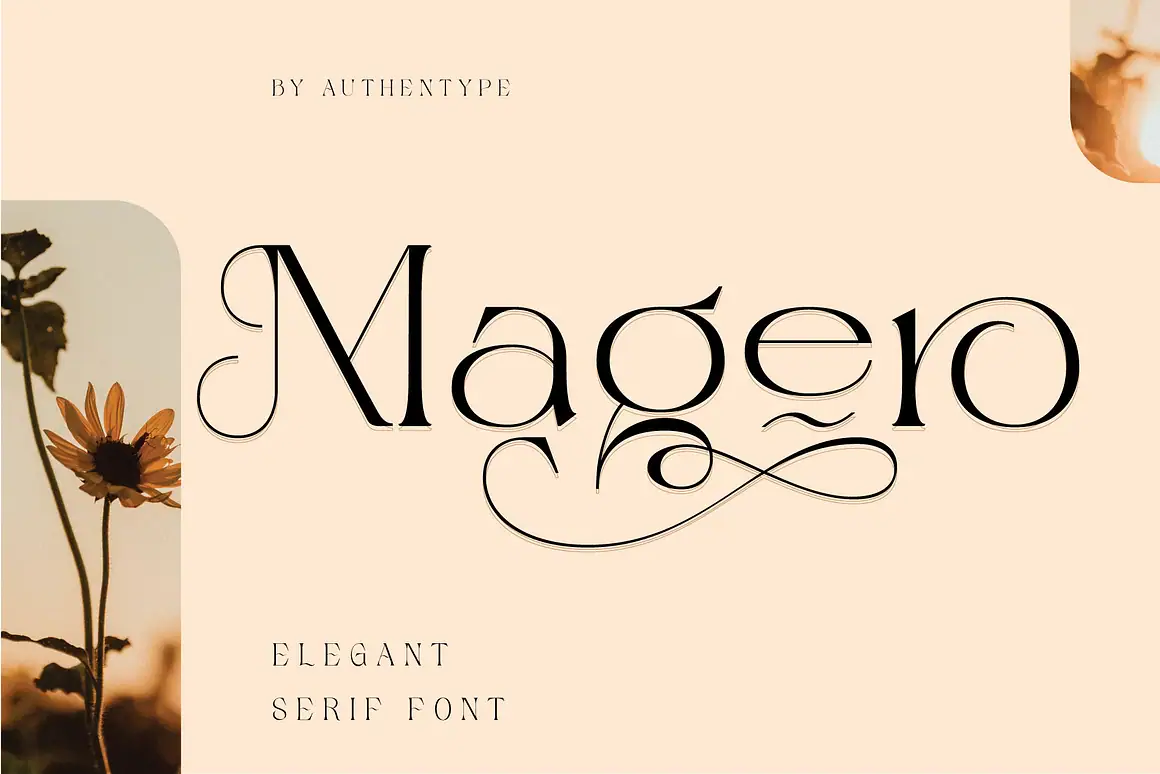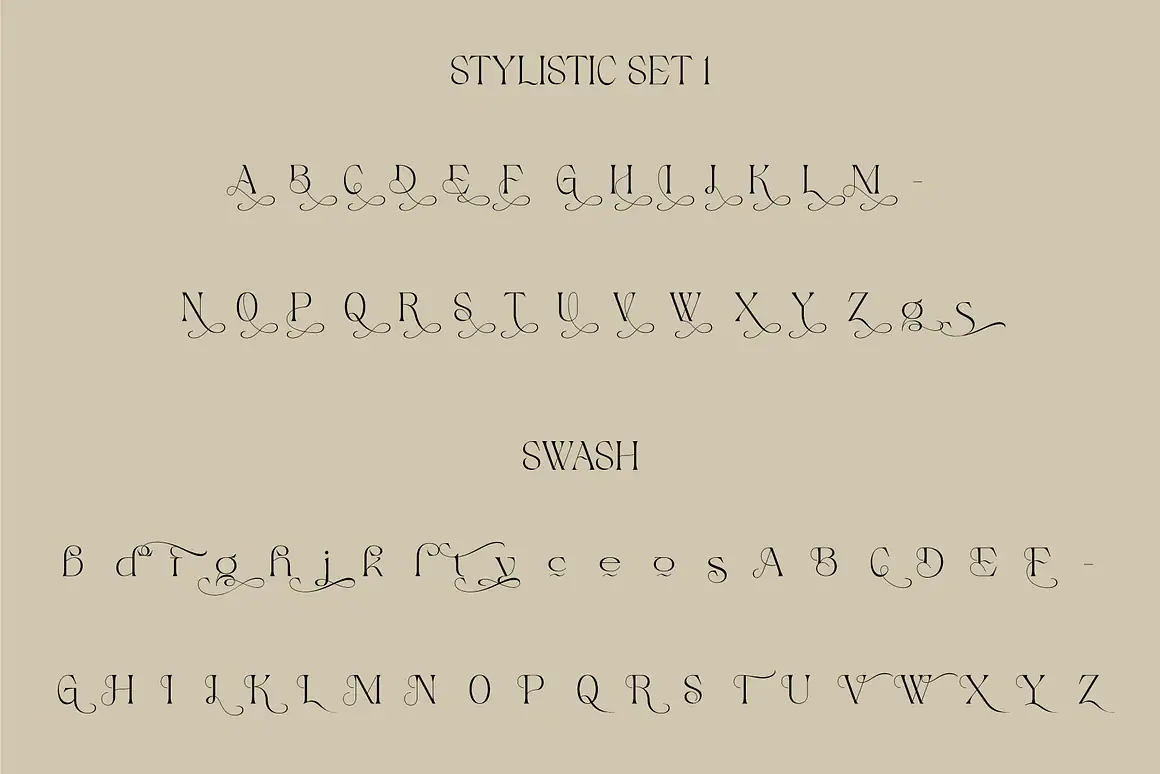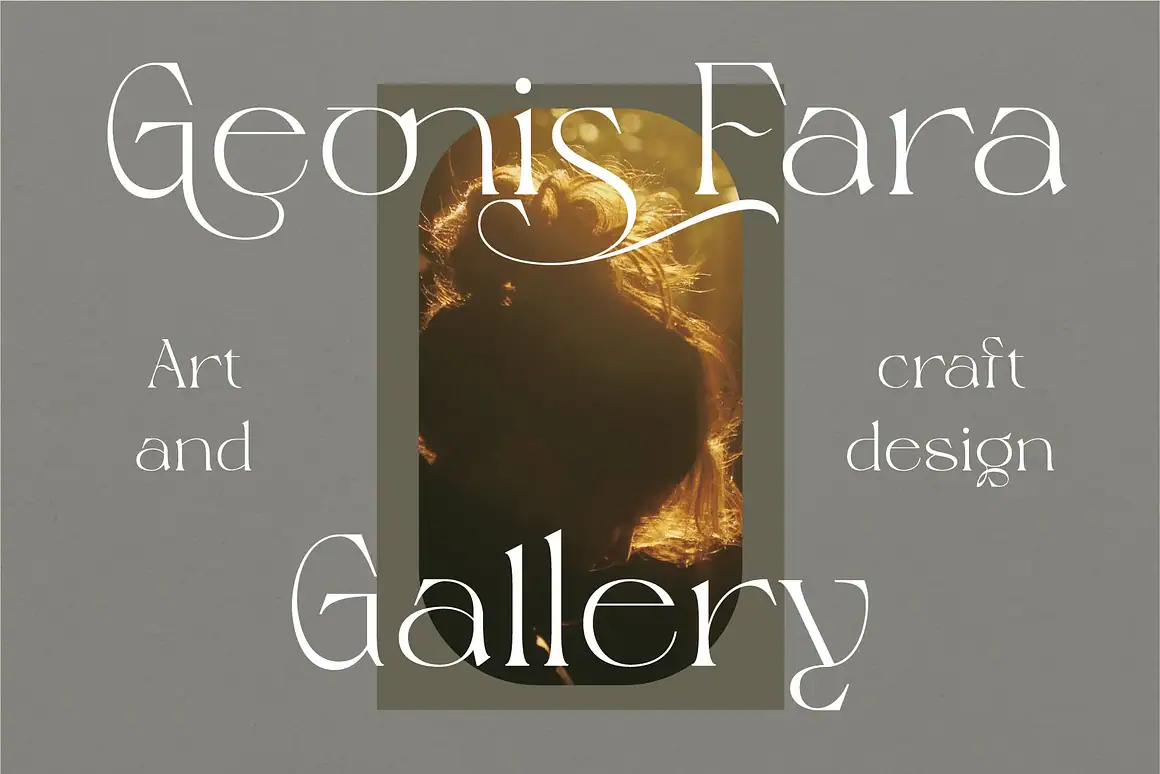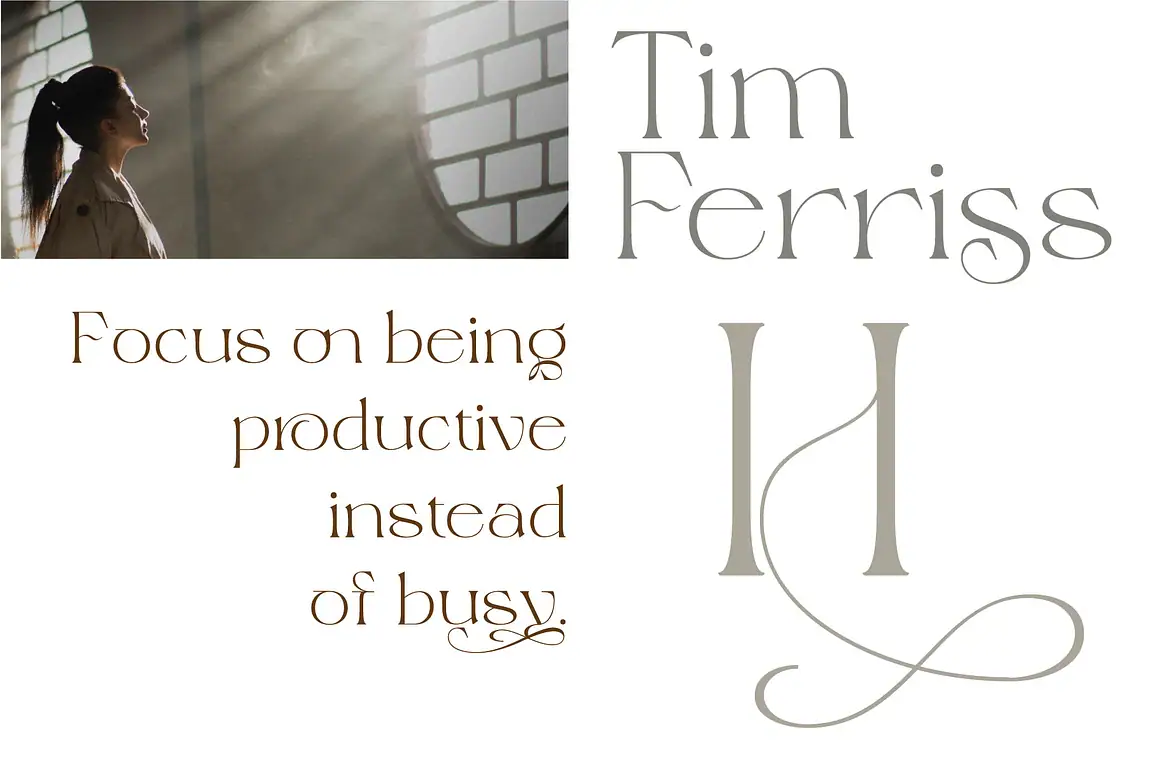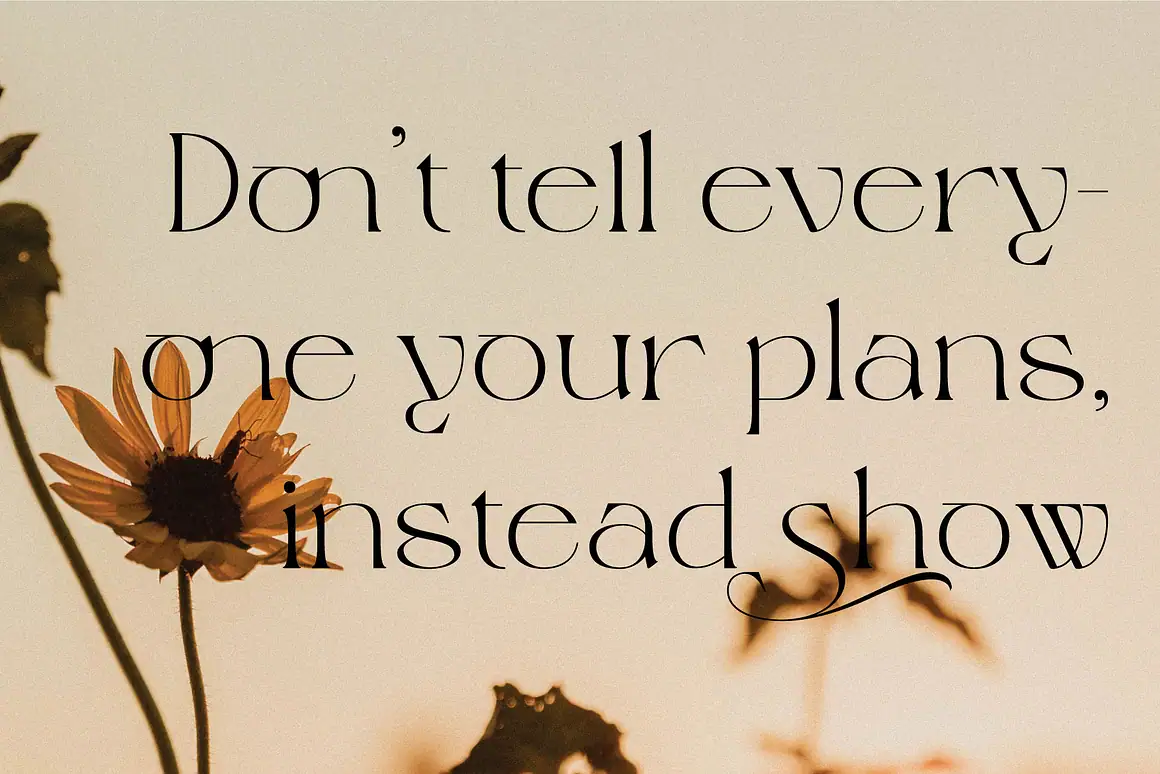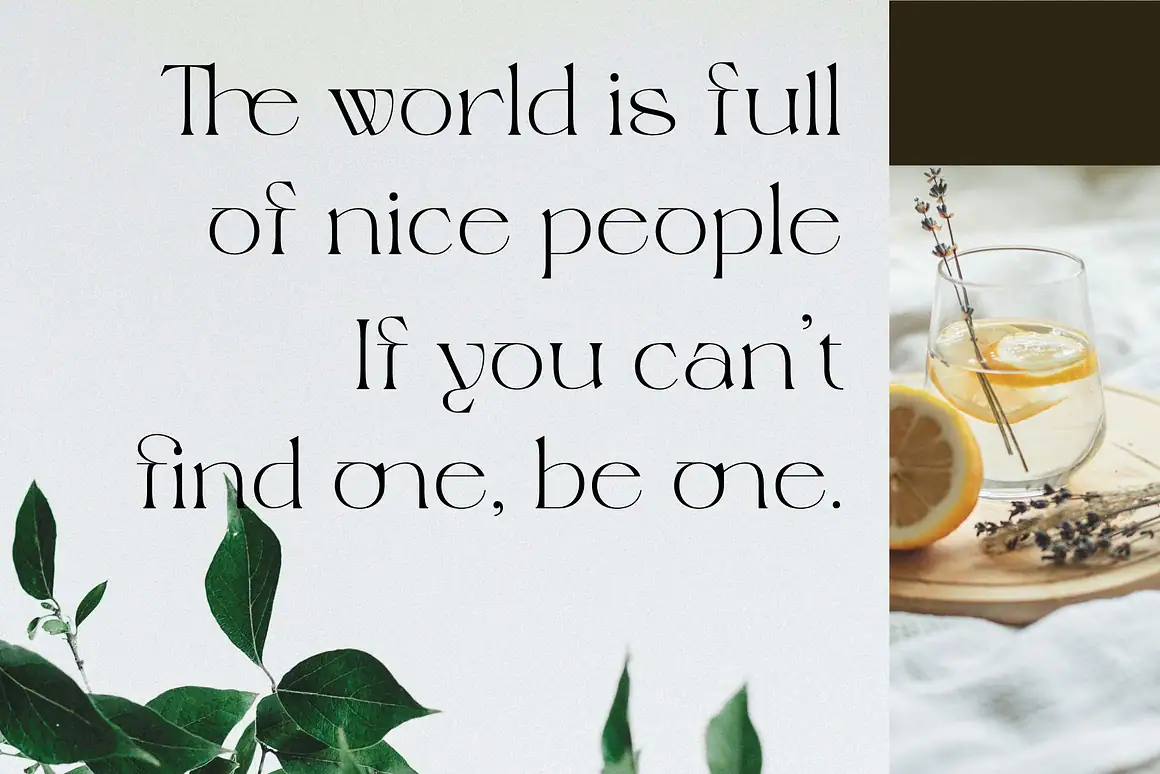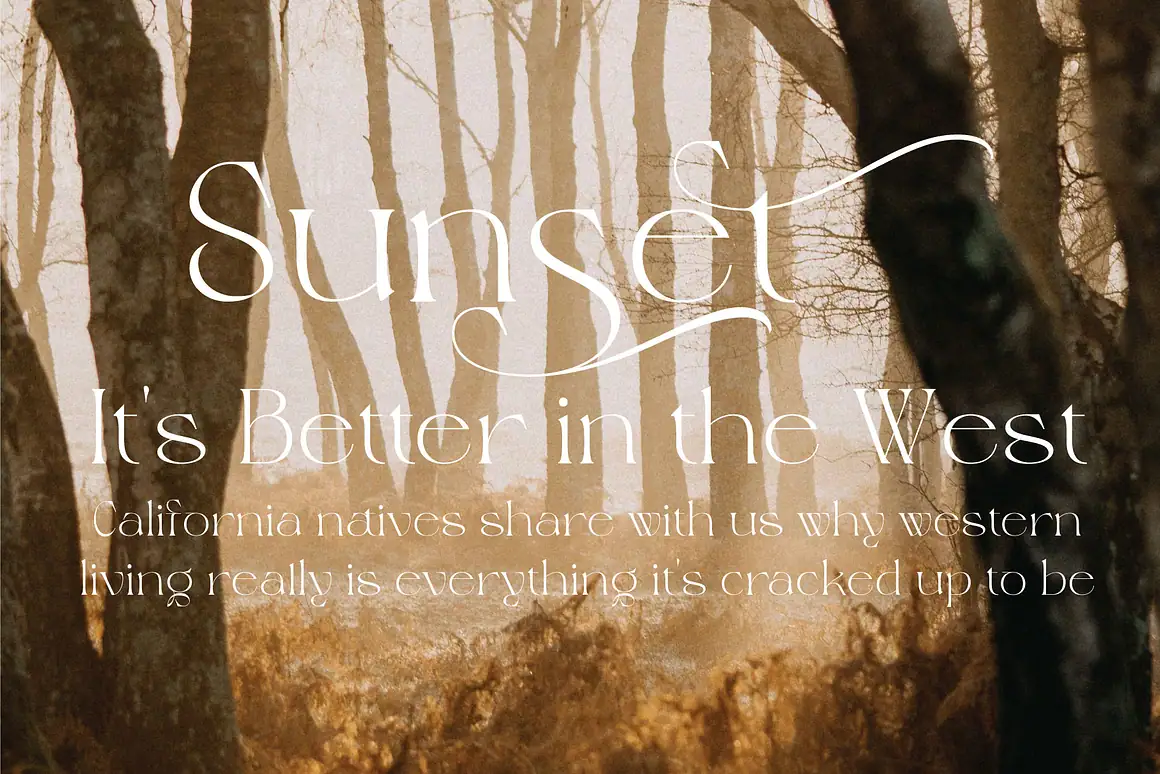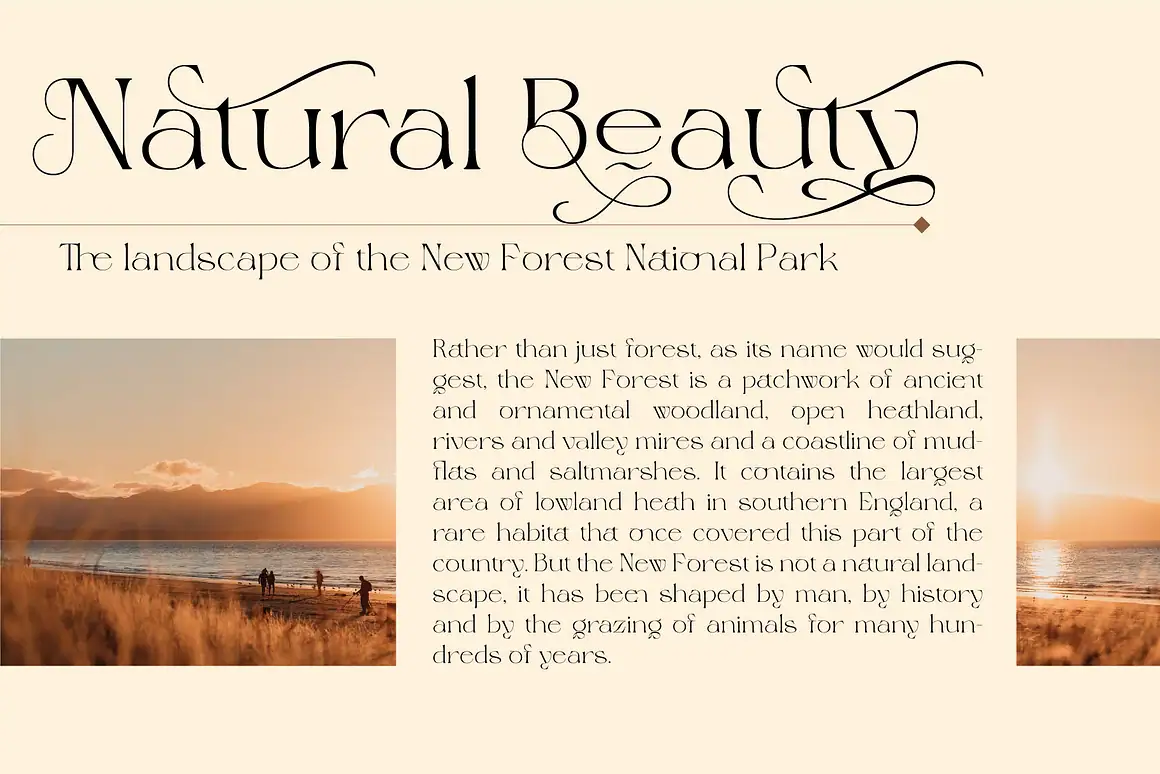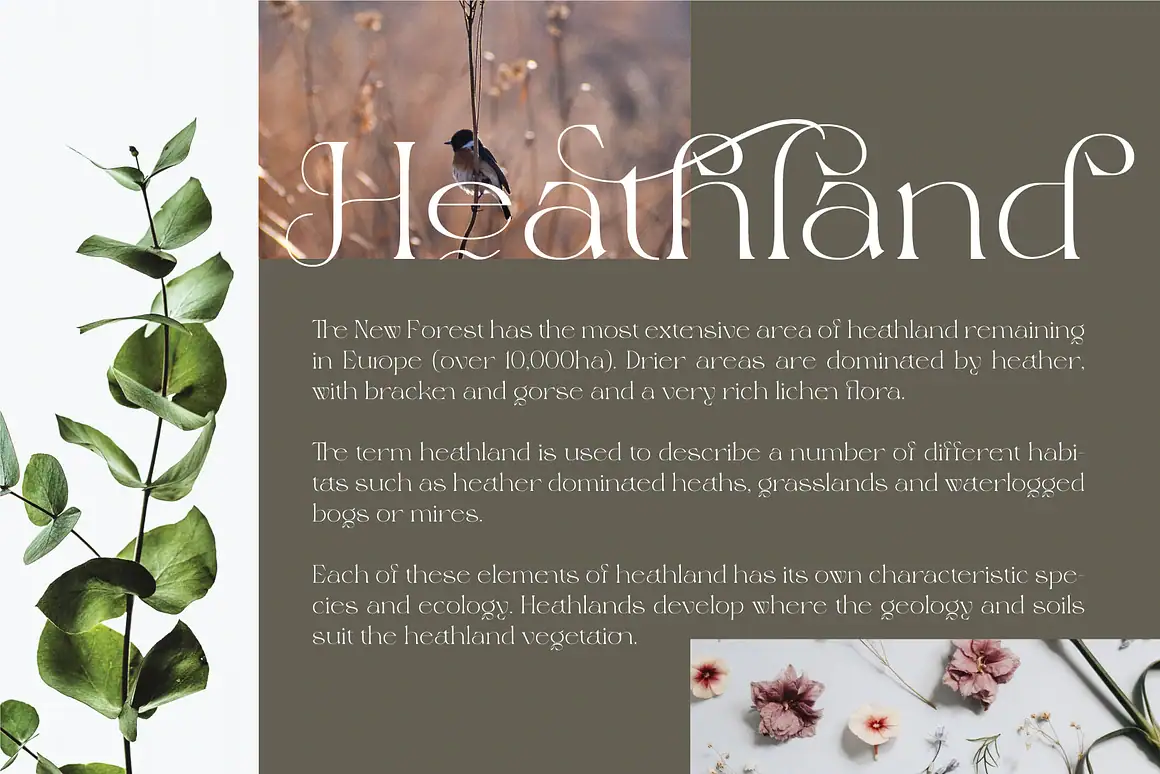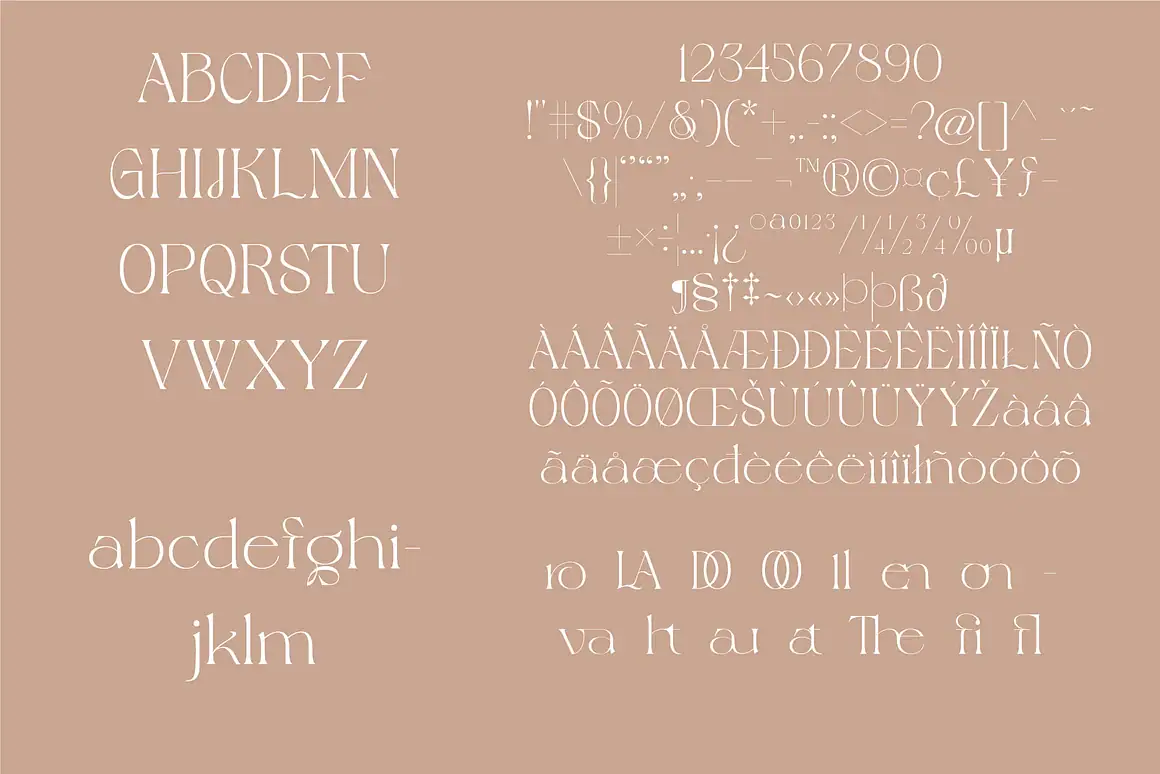
Magero — Elegant Serif Font with Ligatures & Swashes
Magero
About Magero – Elegant Serif Font
Magero brings luxury editorial vibes with clean contrast and graceful curves. Discretionary ligatures give each word a unique silhouette, while swashes and stylistic sets add expressive flair for headlines, logos, and brand identities.
Key Features
Discretionary ligatures for varied word shapes
Swashes & Stylistic Sets for expressive headlines and logos
Standard glyphs: uppercase, lowercase, numerals, punctuation, ligatures
Multilingual support (includes ä ö ü Ä Ö Ü ß ¿ ¡)
Perfect For
Logos & monograms, fashion/beauty branding, magazines & editorials, posters, packaging, social media graphics, wedding stationery, and website hero headings.